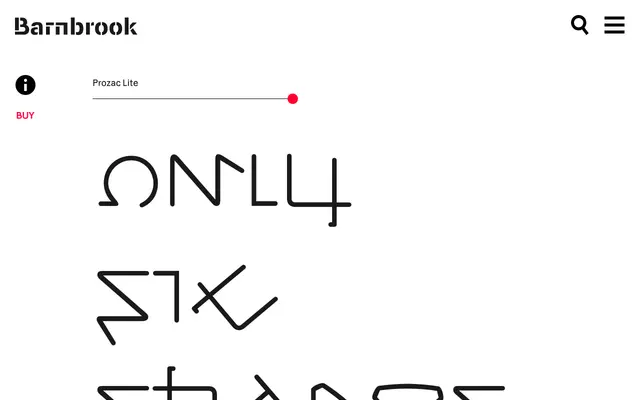
Prozac
A conceptual typeface that reduces the Roman alphabet to just six geometric shapes, rotated and flipped to form all 26 letters.
Pushing early modernist experiments in alphabetic simplification to an extreme, the typeface constructs every letter from a set of six forms through rotation and reflection alone. Named after the antidepressant, the design deliberately evokes a clinical, pharmaceutical aesthetic, as though produced by scientists rather than type designers. The name also alludes to the numbing effect a hyper-rationalised alphabet might have on language and meaning.
Prozac reduces the Roman alphabet to six geometric shapes, rotated and flipped to produce all 26 letters. This extreme rationalisation places it firmly in experimental display territory, descended from early modernist geometric abstraction.